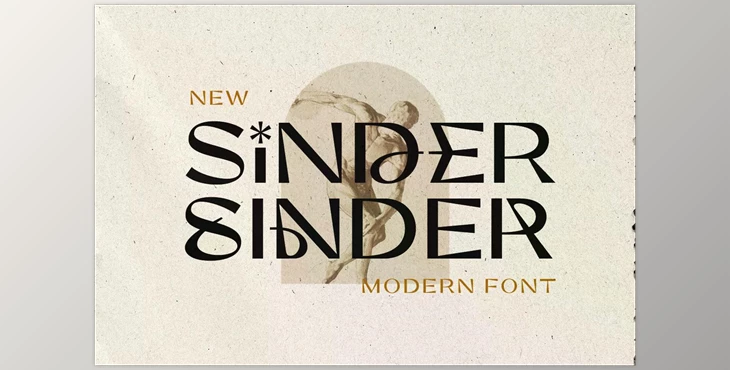
Sinder is a contemporary and fashionable sans-serif font. It has distinctive features of the forms in lowercase. It is possible to combine uppercase and lowercase forms to create the most stunning and user-friendly style. You can utilize this font to create logotypes, posters branding and enjoy stunning and unique designs. The font is also multilingual!